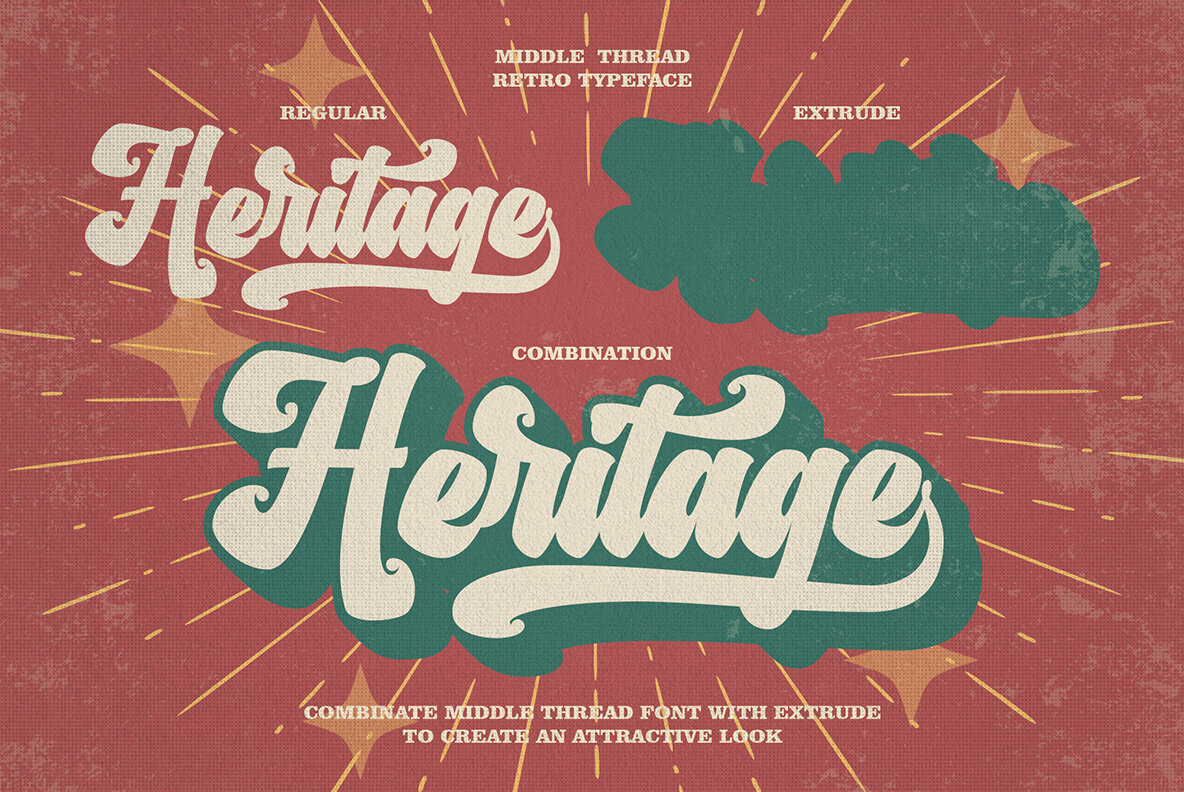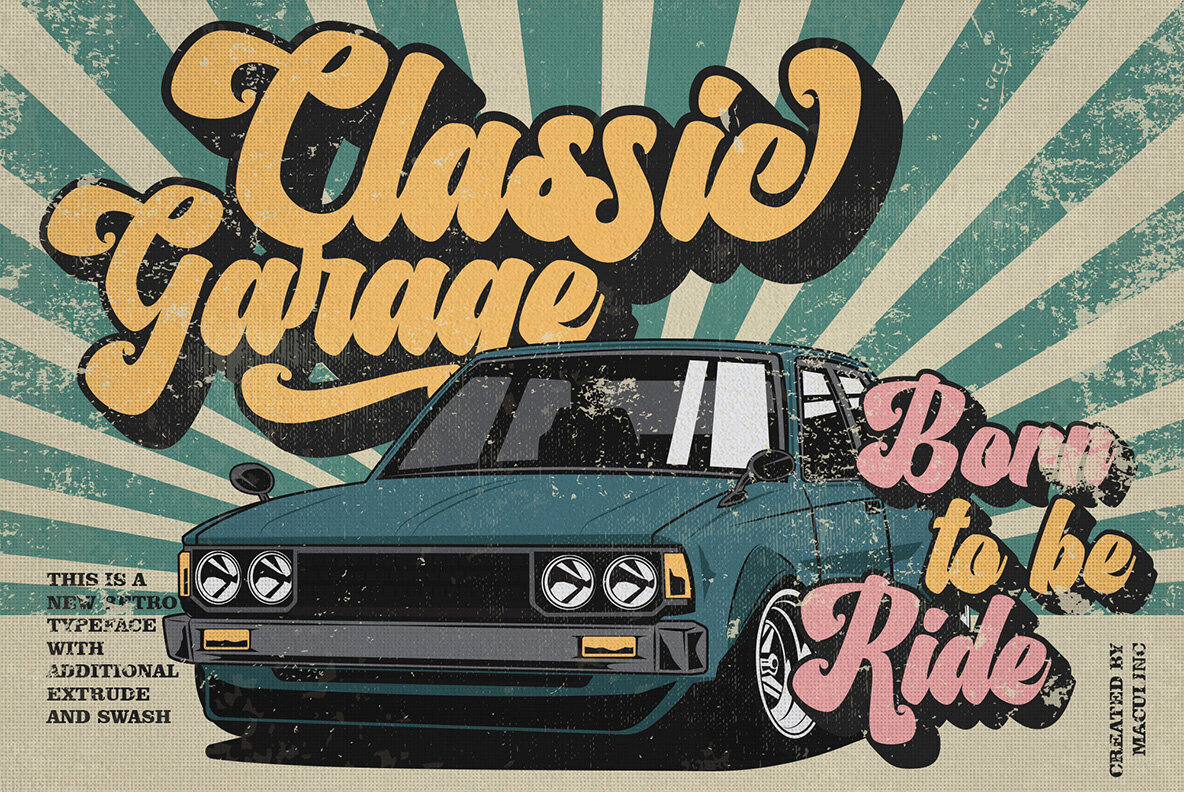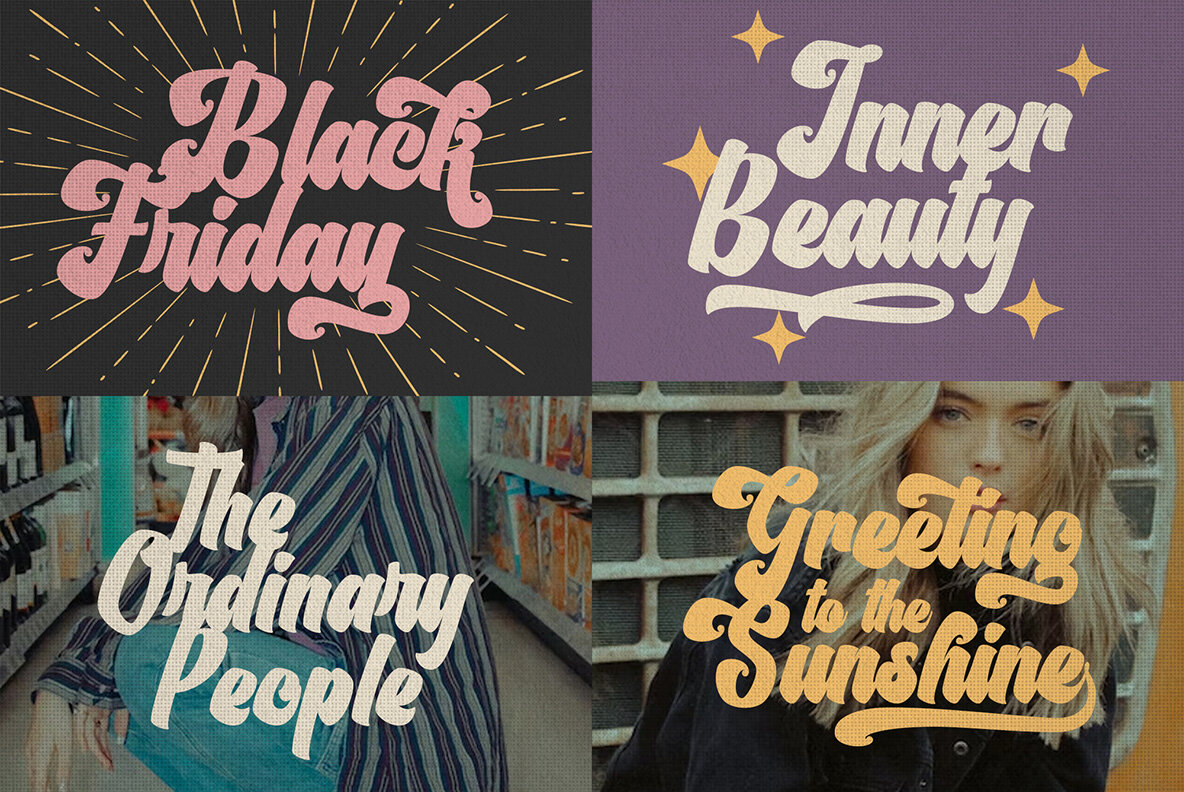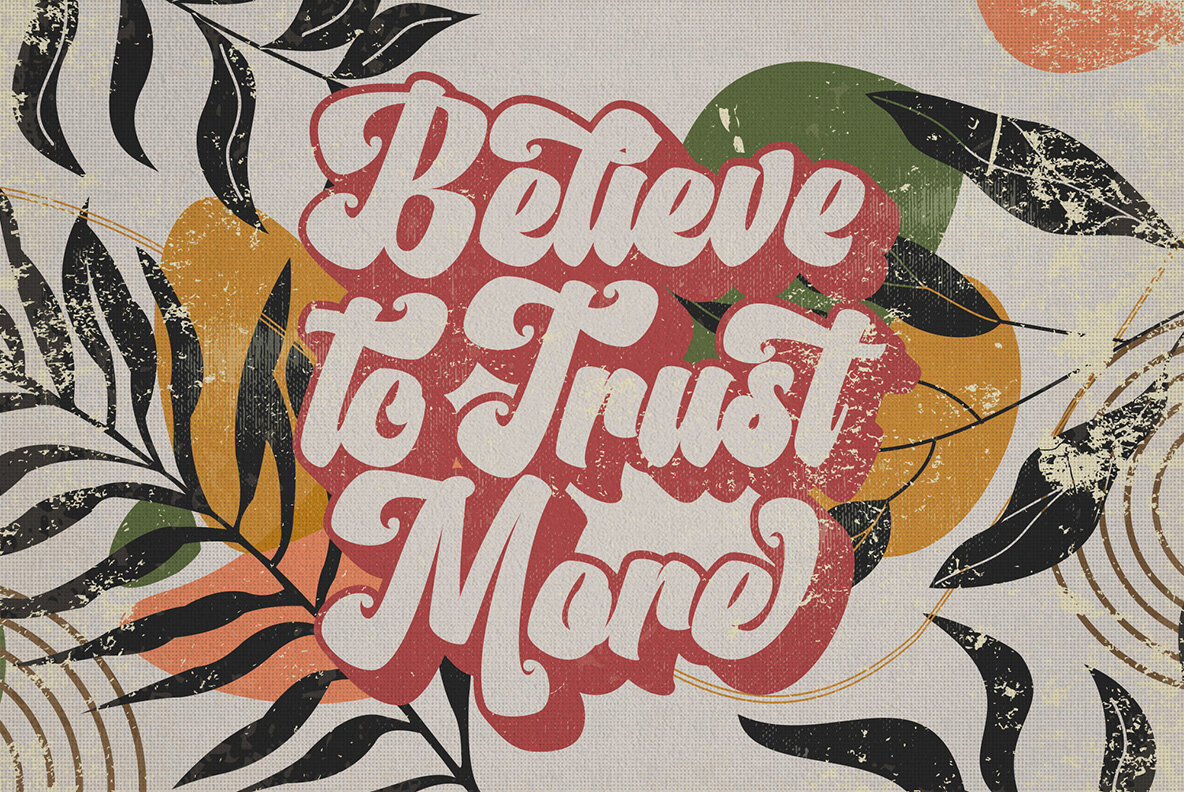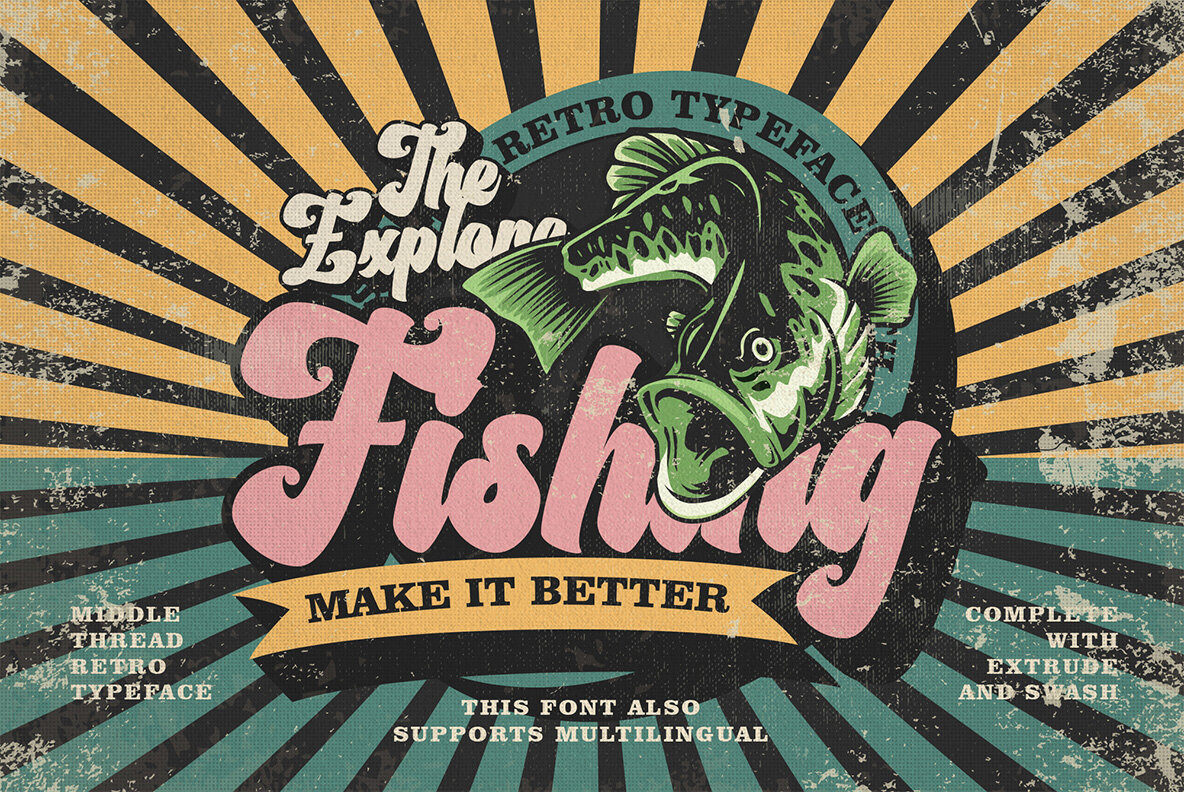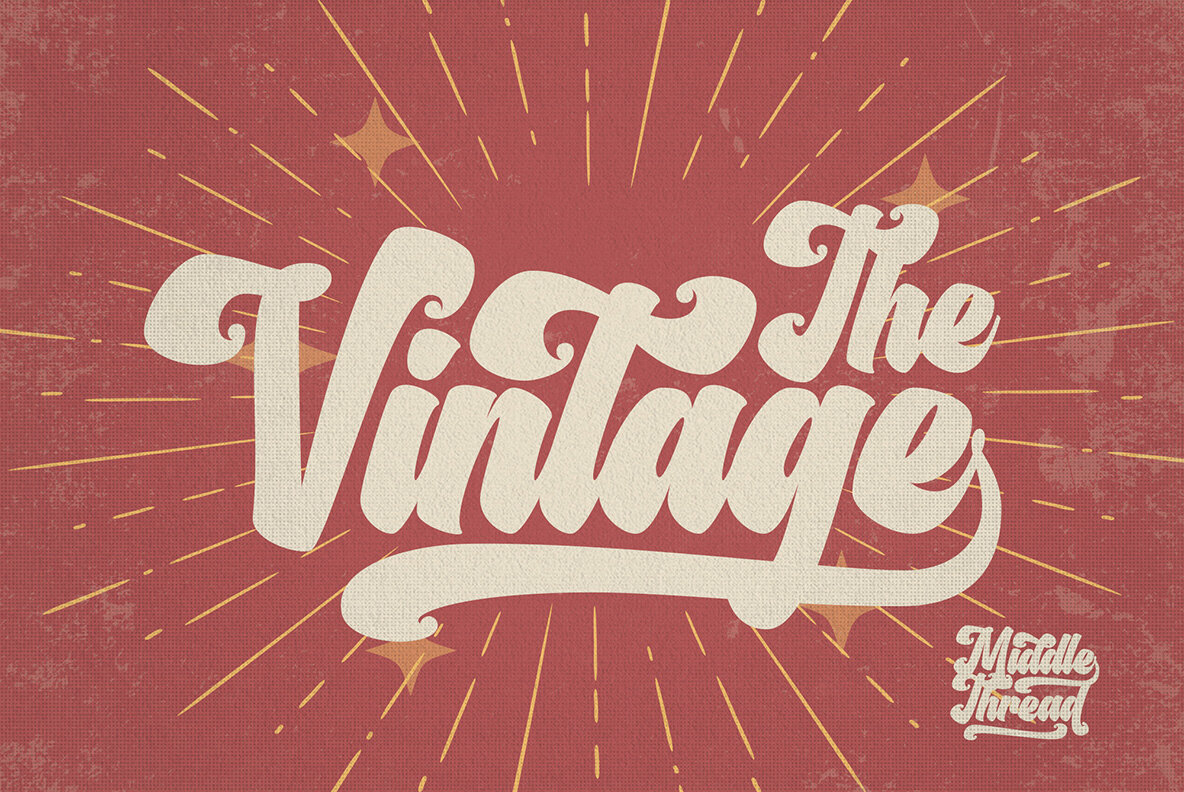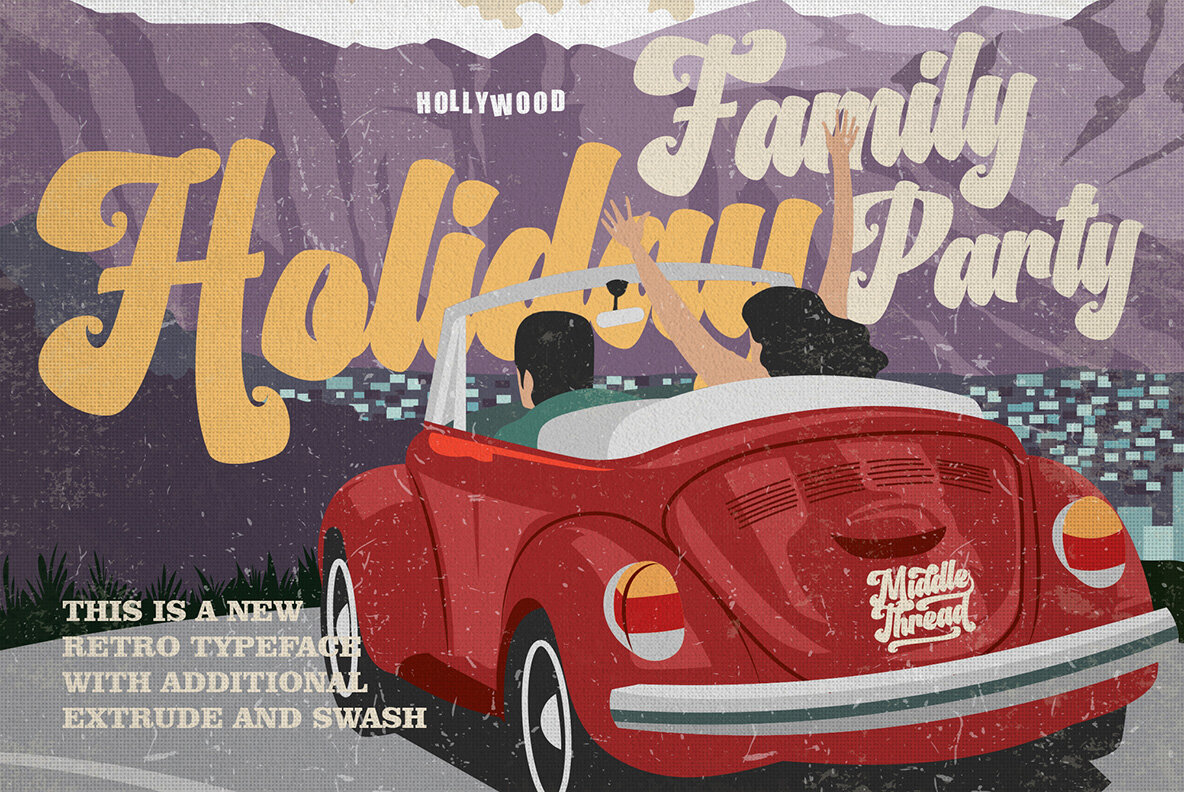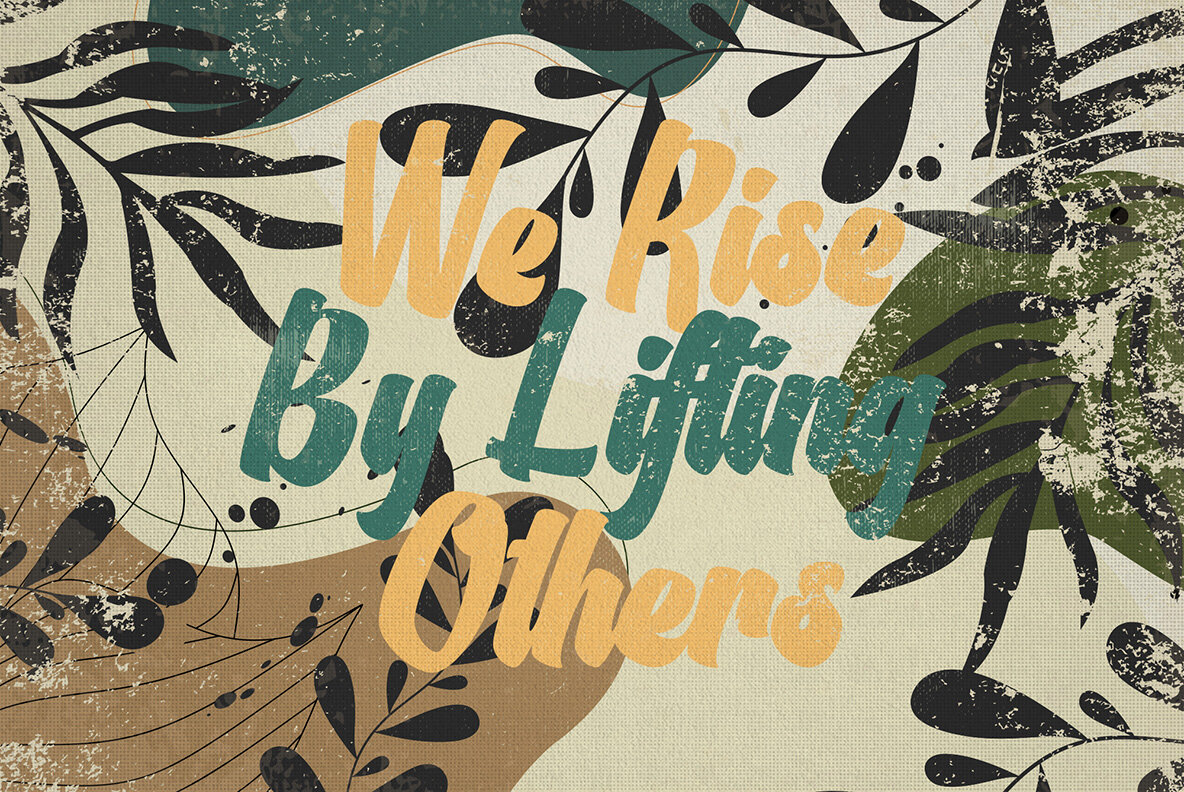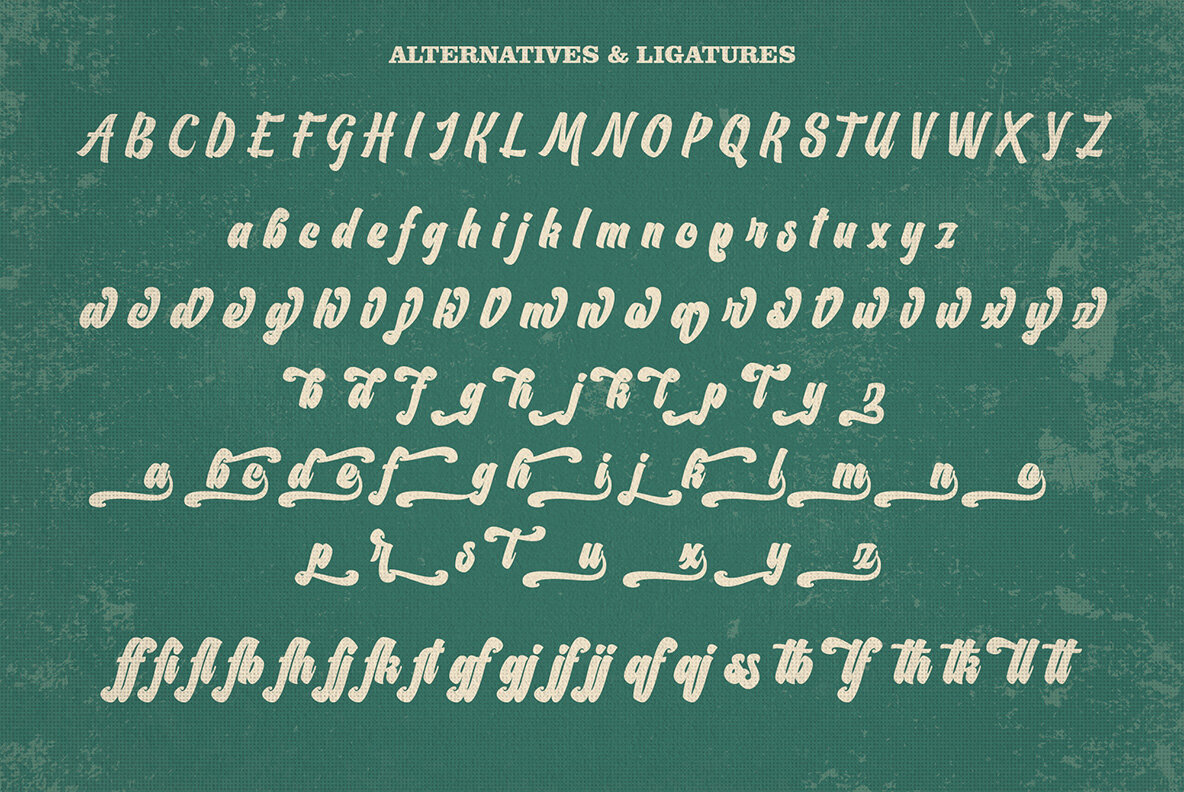
Middle Thread Font
Middle Thread, by Maculinc, is a script font that embodies a retro aesthetic through its blend of soft curves and high-contrast glyphs. This font exudes an attractive vintage quality, making it a versatile choice for digital designers seeking to capture a nostalgic vibe. Ideal for a variety of applications, Middle Thread enhances designs ranging from quotes and body copy to display elements in posters, logos, and packaging.Middle Thread: Retro Script Font with a Vintage Charm